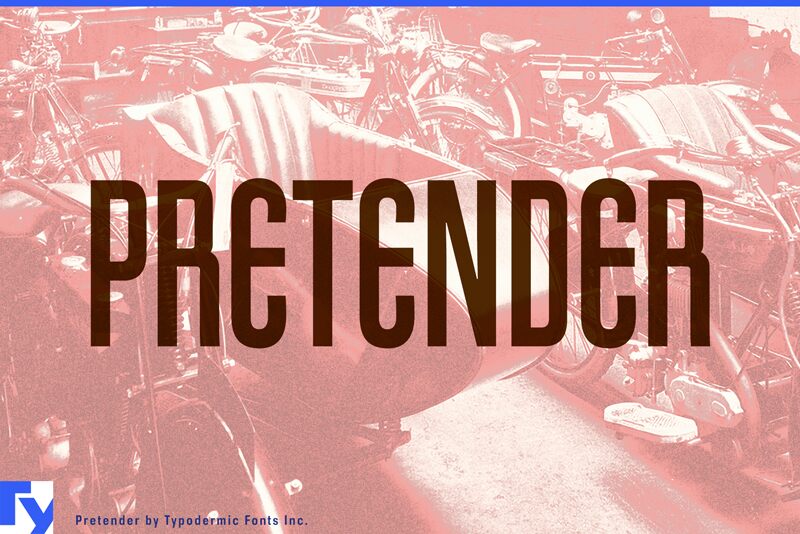
Pretender-Regular
Pretender, crafted by the gifted Ray Larabie, is a display font that commands attention with its semi-light weight and extra-condensed width. This unique typeface channels the elegance of the Art Deco era, drawing its inspiration from the vintage charm of "Mexicali Rose" sheet music covers. Its narrow profile and stylish geometric shapes make Pretender perfect for creating impactful headlines that evoke a sense of nostalgia while maintaining modern readability.
The font's aesthetic is a harmonious blend of classic allure and contemporary precision, making it highly versatile for an array of creative endeavors. Whether used in branding, poster design, or editorial layouts, Pretender adds a touch of sophistication and period-specific flair without sacrificing functionality. Embrace the timeless beauty and artistic spirit encapsulated in Pretender to elevate your design projects to new heights.
Ray Larabie